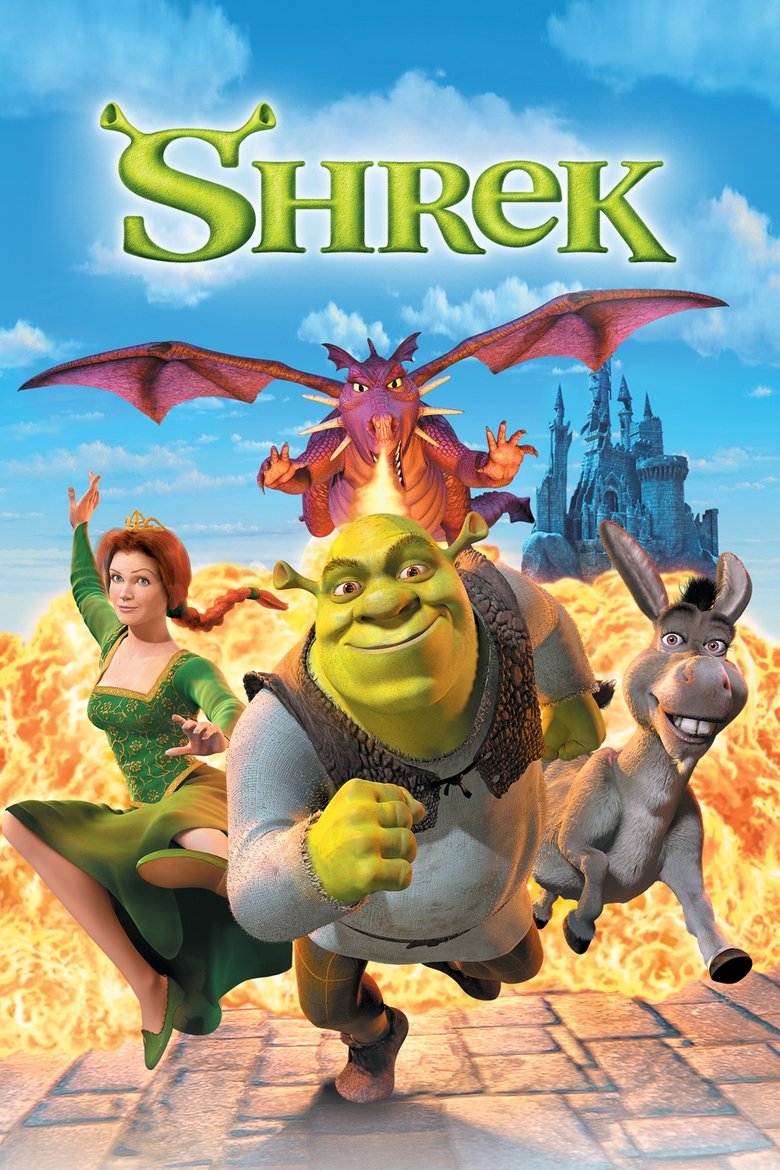
About the Shrek font
Shrek's logo is fat, fun and cartoonish. Luckiest Guy delivers that same chunky, swampy playfulness for free.
The original Shrek logo uses custom lettering. This generator recreates the look with Luckiest Guy — a free, open-license font you can style and download.